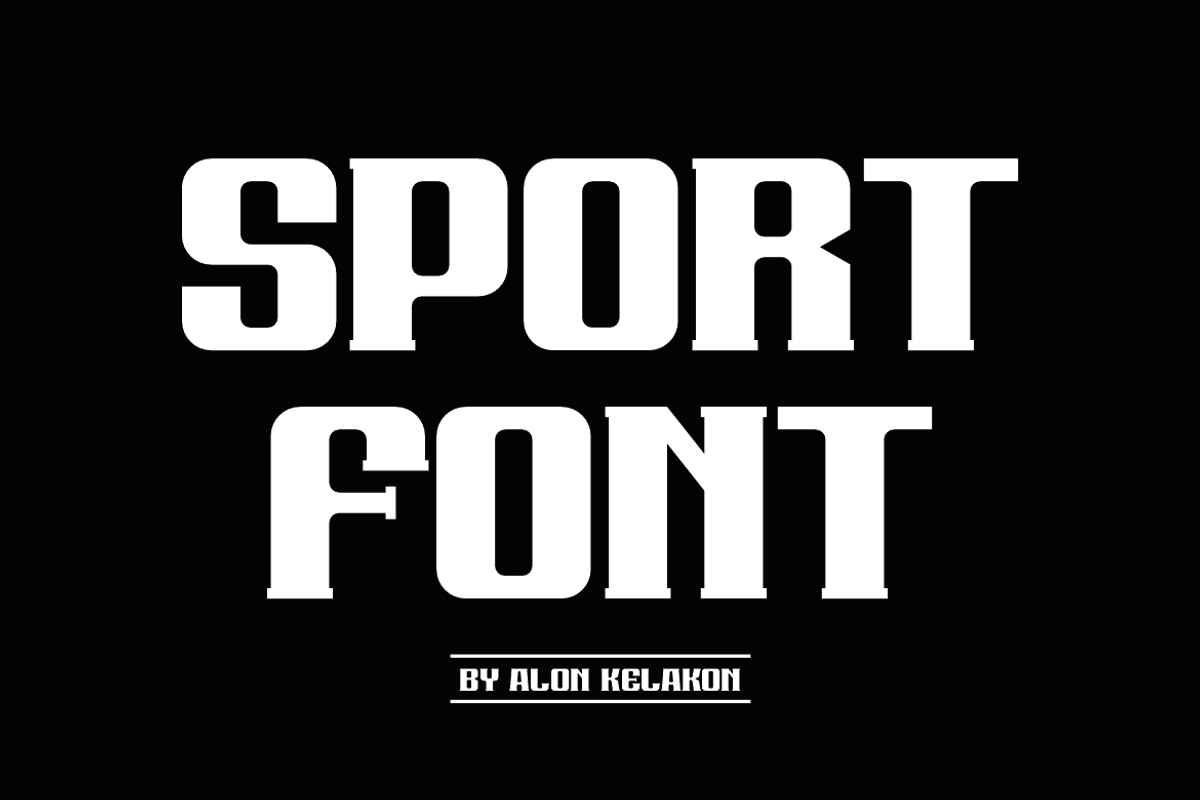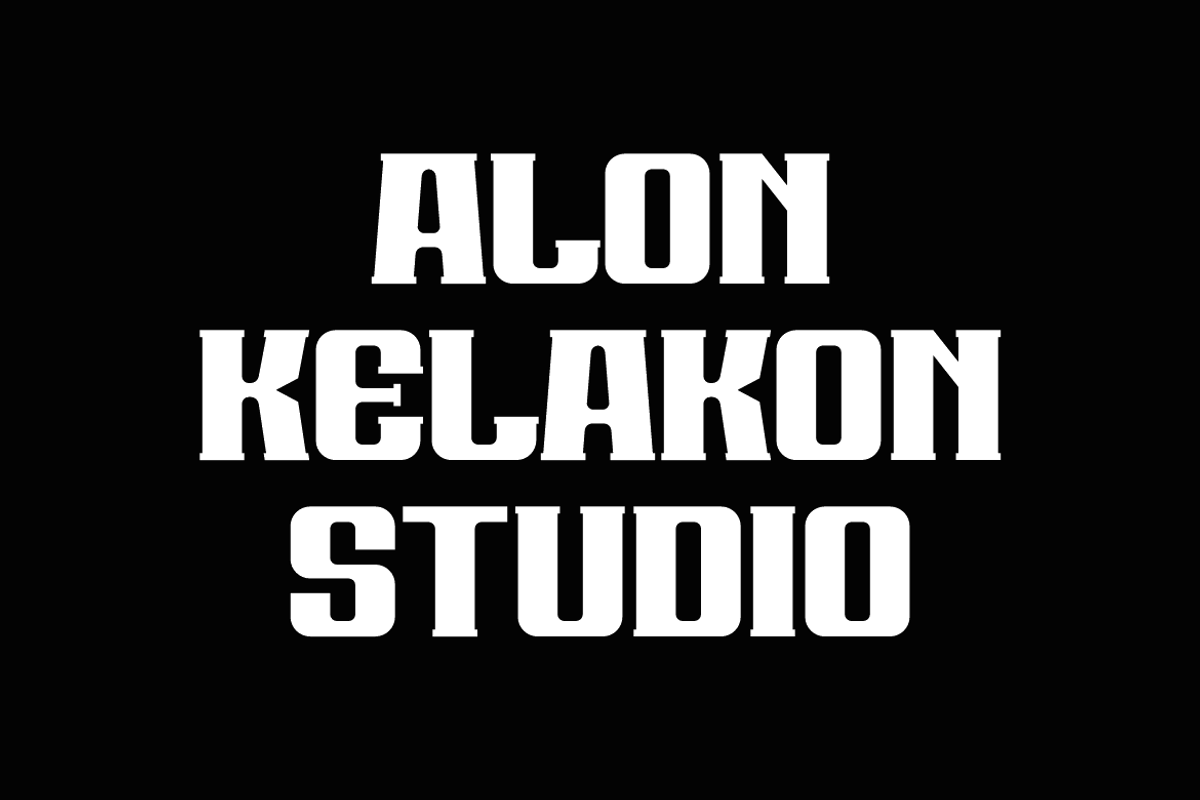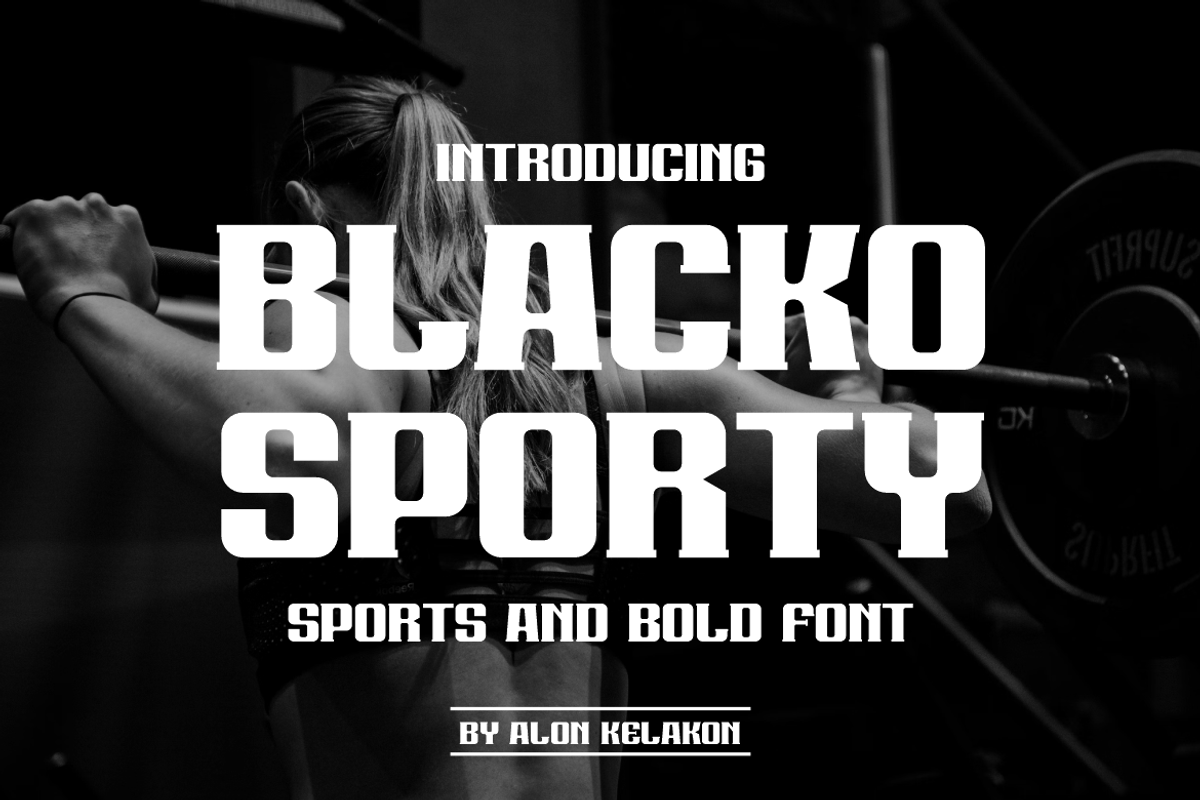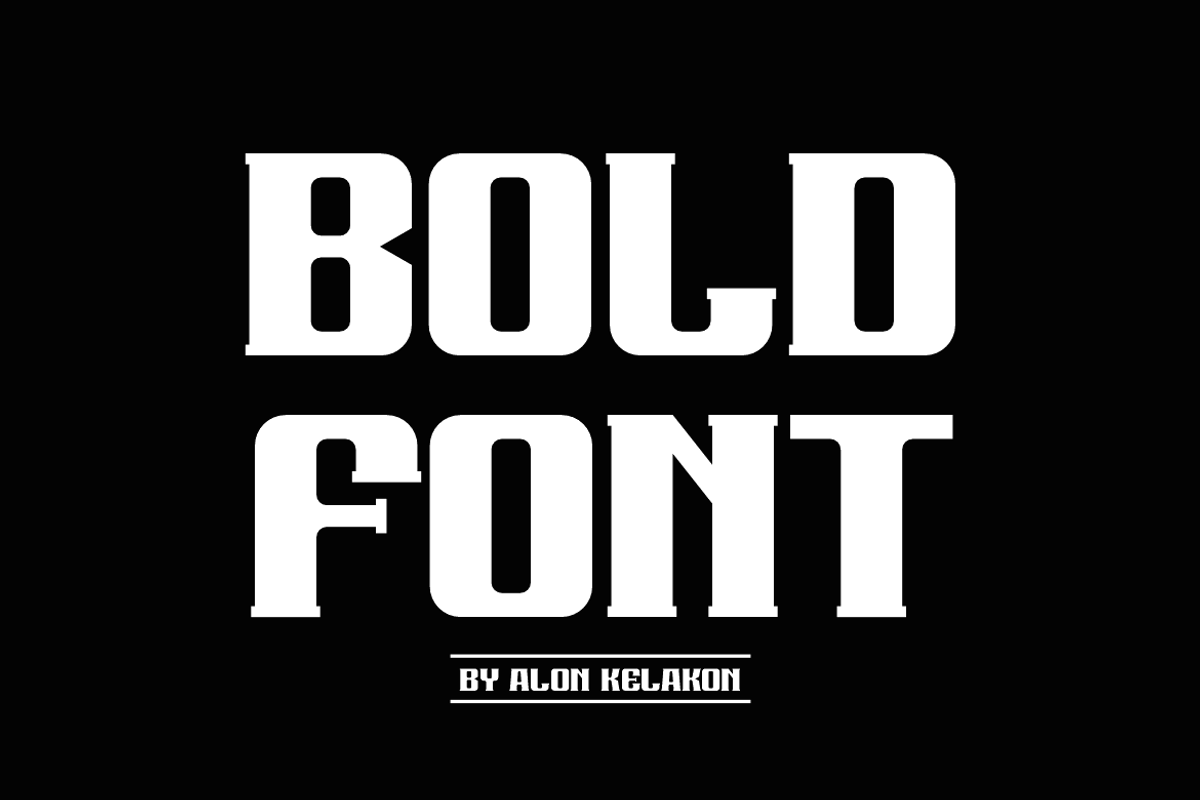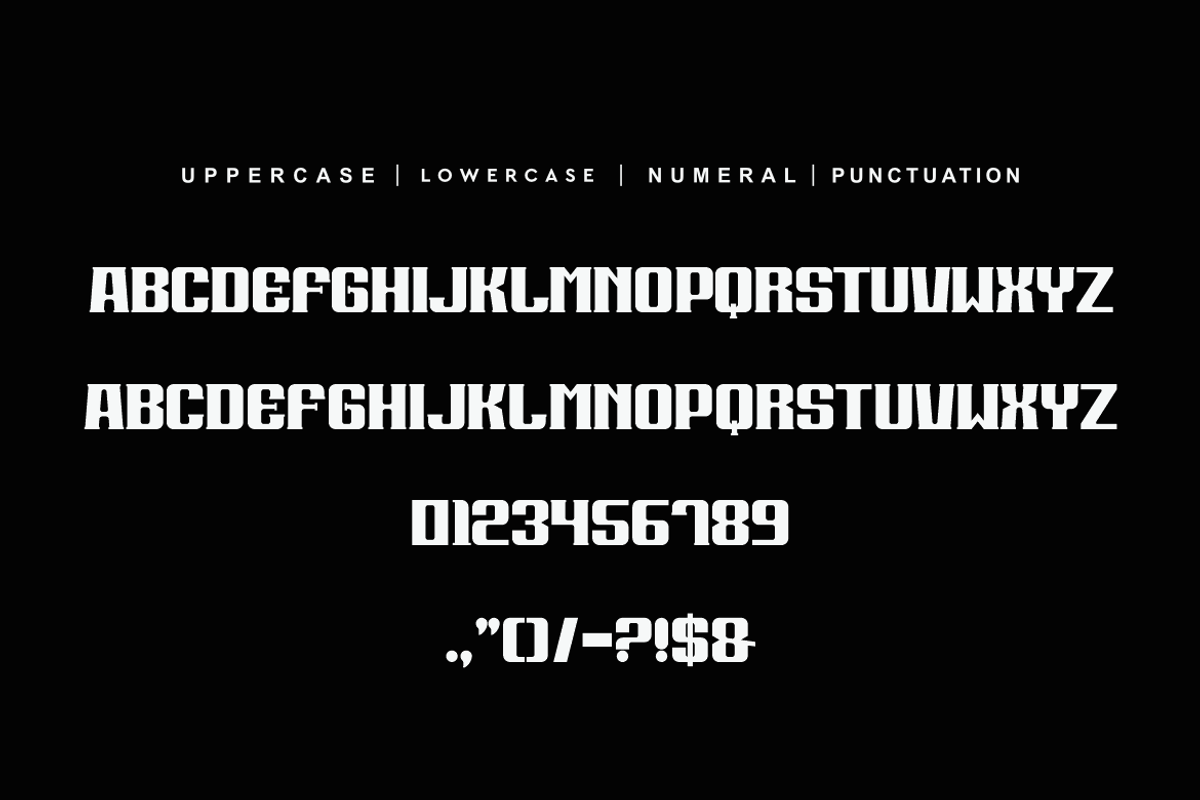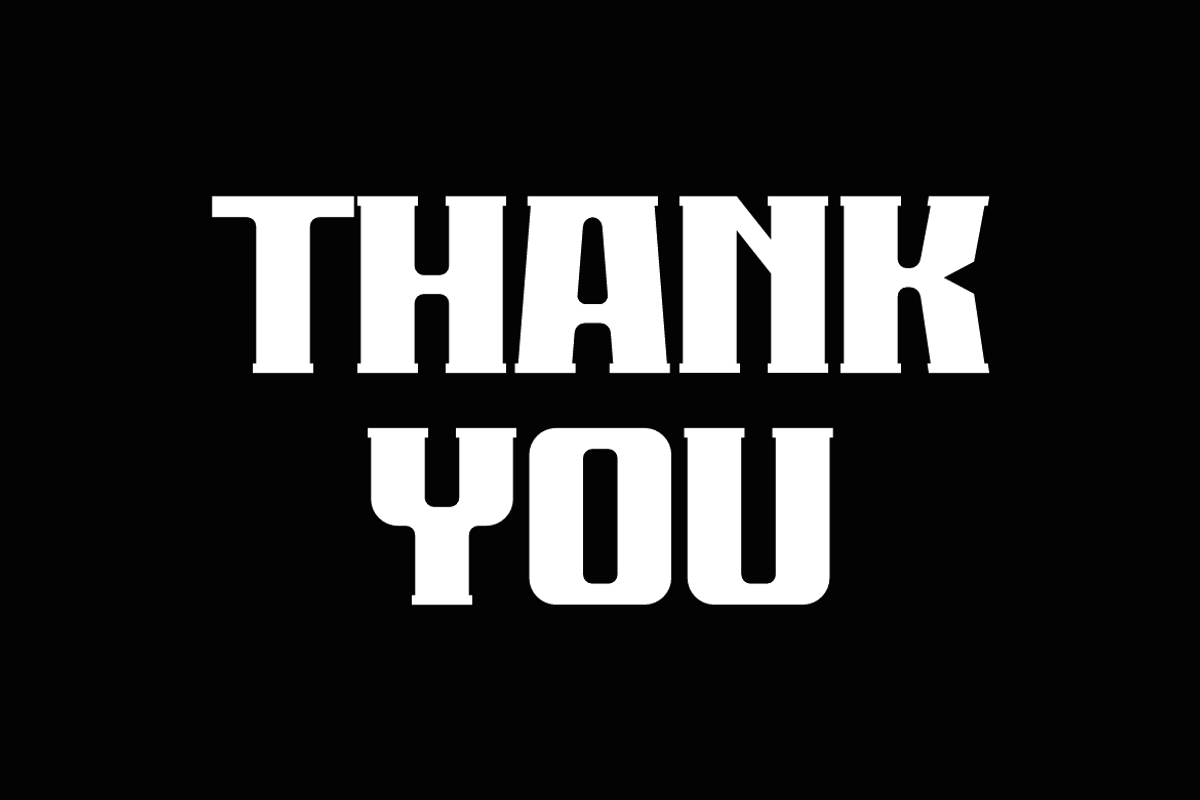
Blacko Sporty
Blacko Sporty Font is unique . Ready to use for your design like labeling, movie sceen, poster, movie title, gigs, album covers, logos, and much more.